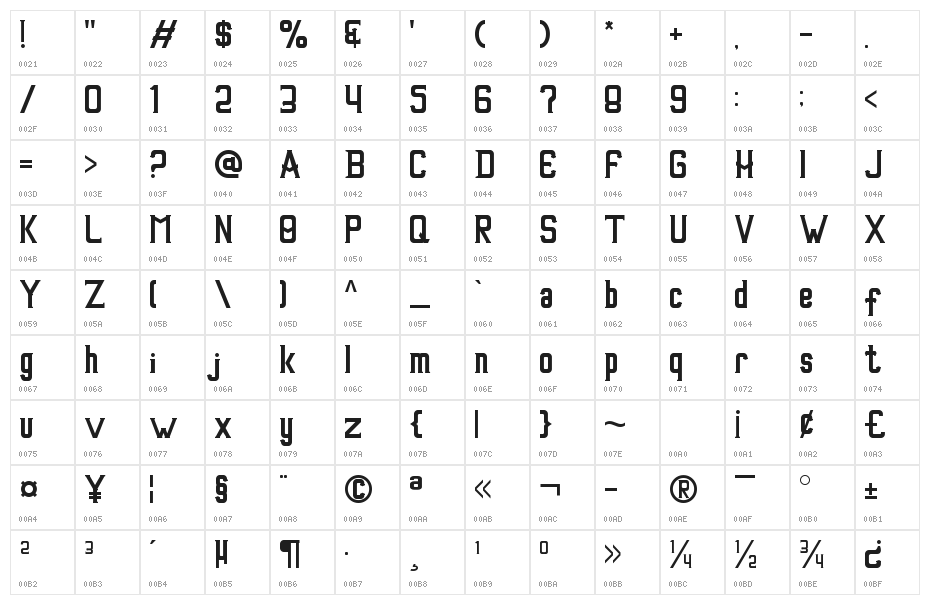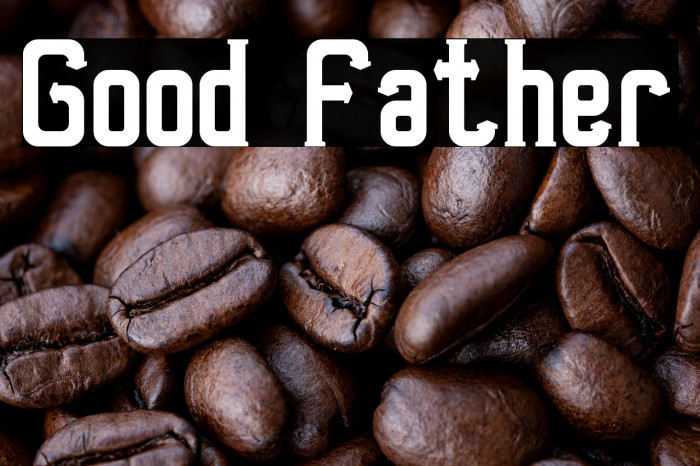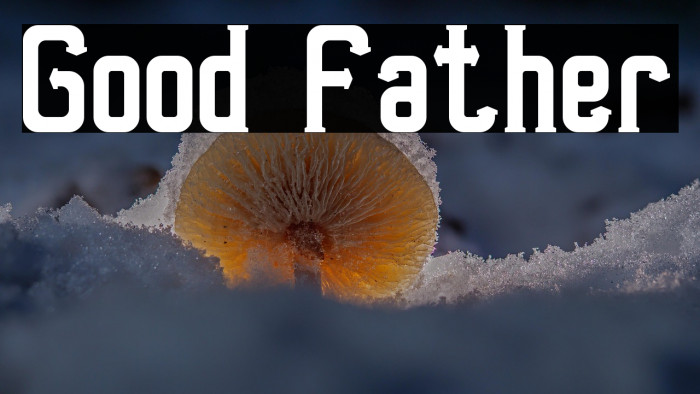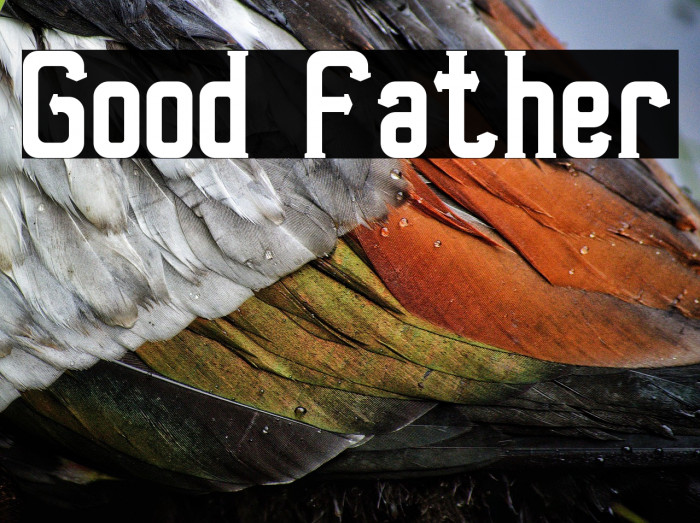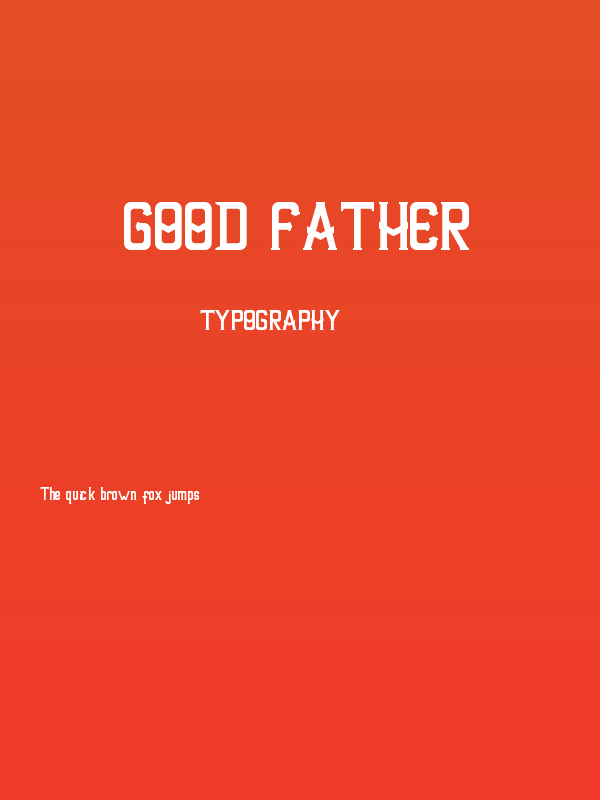
Good Father Font
Good Father Description
This font features a bold, distinctive style with a strong presence. The characters are designed with unique, angular cuts and a slightly condensed form, giving them a modern and edgy appearance. The uppercase letters are particularly striking, with sharp edges and a geometric feel. The lowercase letters maintain the same boldness, ensuring consistency across the typeface. Numbers and special characters are crafted with the same attention to detail, making them stand out. The overall design is both eye-catching and versatile, suitable for a variety of creative projects.
| Proposed Projects | Ideal for branding, posters, album covers, and any project requiring a strong visual impact. |